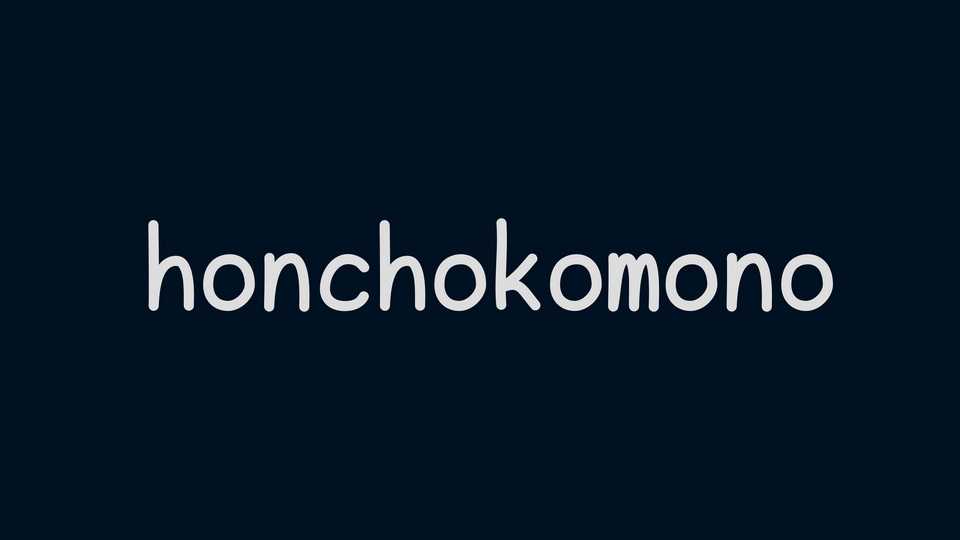
Download Honchokomono font, a sans-serif monospace typeface made to resemble the personal handwriting. It is designed to make the terminal look cute and nice when writing C or TeX.
Designer: Honchokomodo